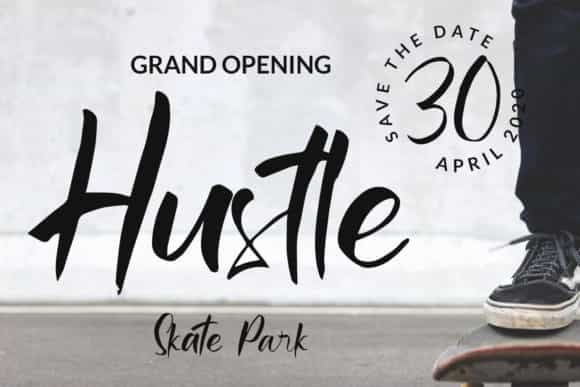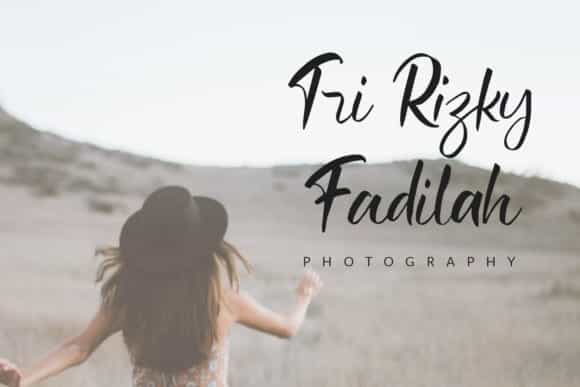
Discover Rusty Frozee Script Font, part of the Brush Calligraphy Handwritten collection—a versatile and unique font perfect for adding a personal touch to your projects. Download it for free and enjoy crafting designs with style, from invitations to social media posts. This font is available exclusively for personal use, giving you the freedom to create without limits. Unlock your creativity with Rusty Frozee Script Font today!
Rusty Frozee Font is a logo-ready handwritten style font. Teamed up with its straight angular lines and the written letters that speak for themselves. Rusty Frozee is the author of a real and unique style, which makes it perfect for logo and branding projects regardless of their size.